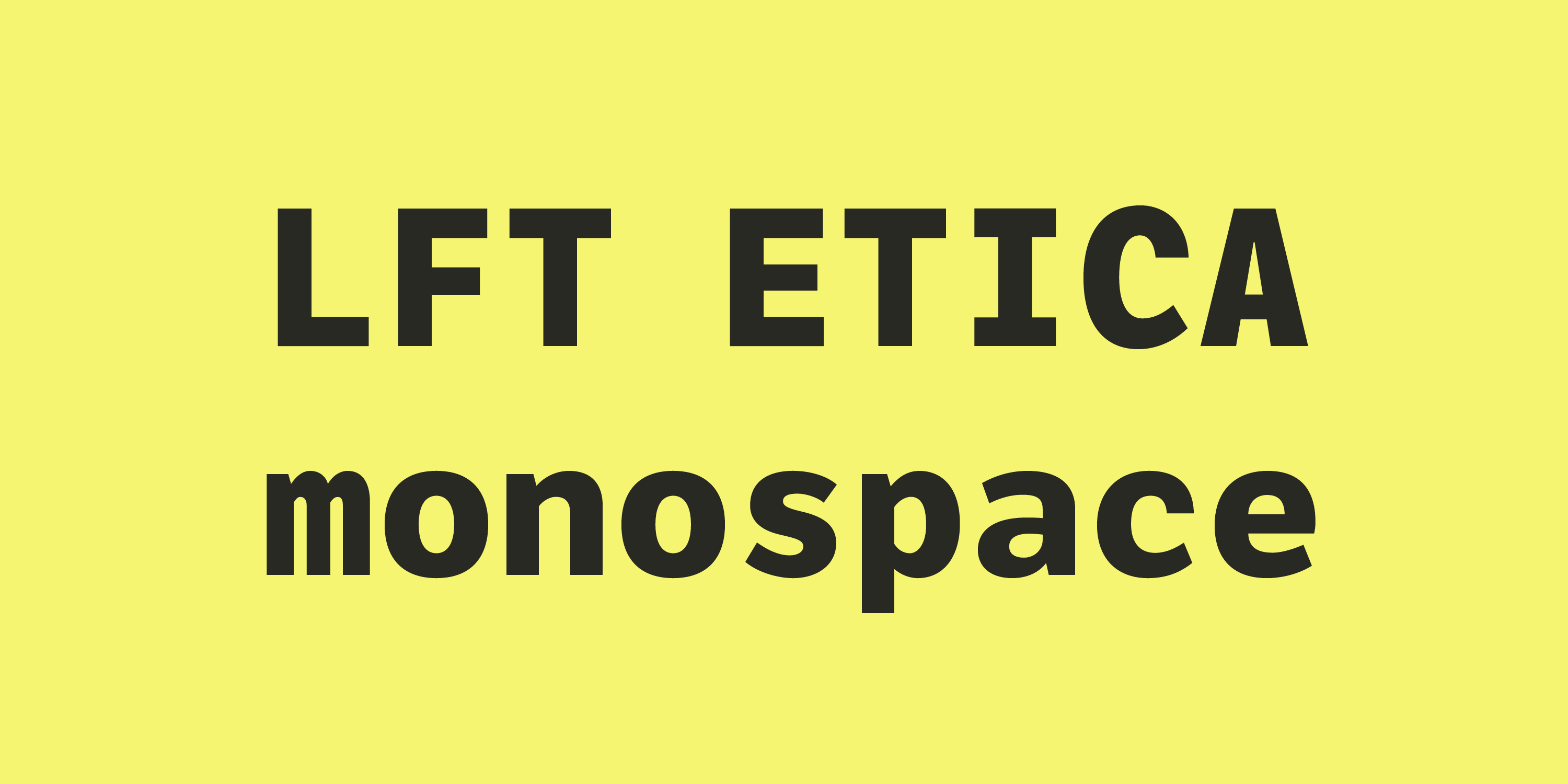
LFT Etica Mono Font is perfect for technical projects including code editor interfaces, programming documentation, software development tools, technical specification sheets, data visualization displays, financial trading platforms, scientific calculator interfaces, and professional development environments. This precise typeface brings monospaced clarity and coding excellence to any design project.
What makes LFT Etica Mono Font exciting is its exceptional balance of monospaced functionality with humanist warmth that reduces eye strain during extended coding sessions. The carefully engineered letterforms feature consistent character width and optimized spacing that ensure perfect alignment in code while maintaining the subtle personality that prevents the sterile appearance of traditional monospace fonts. This font delivers the ideal combination of technical precision and reading comfort that developers demand.
The LFT Etica Mono Font family typically includes multiple weights from light to bold with monospaced styling, complete character sets featuring uppercase and lowercase letters, numerals, programming symbols, and technical punctuation. The design incorporates precise monospace metrics and enhanced character differentiation that improve code readability. Premium versions include comprehensive Unicode support and specialized characters for international programming environments.
Whether you're designing for software companies, development tools, or technical documentation, LFT Etica Mono Font Free Download delivers the coding excellence that enhances developer productivity and reduces fatigue. Its monospaced precision makes it ideal for programming interfaces and technical communications that require perfect character alignment and exceptional clarity. The font's technical heritage ensures it communicates professionalism and reliability, making it perfect for any project requiring the authoritative aesthetic of professional programming and technical documentation excellence.